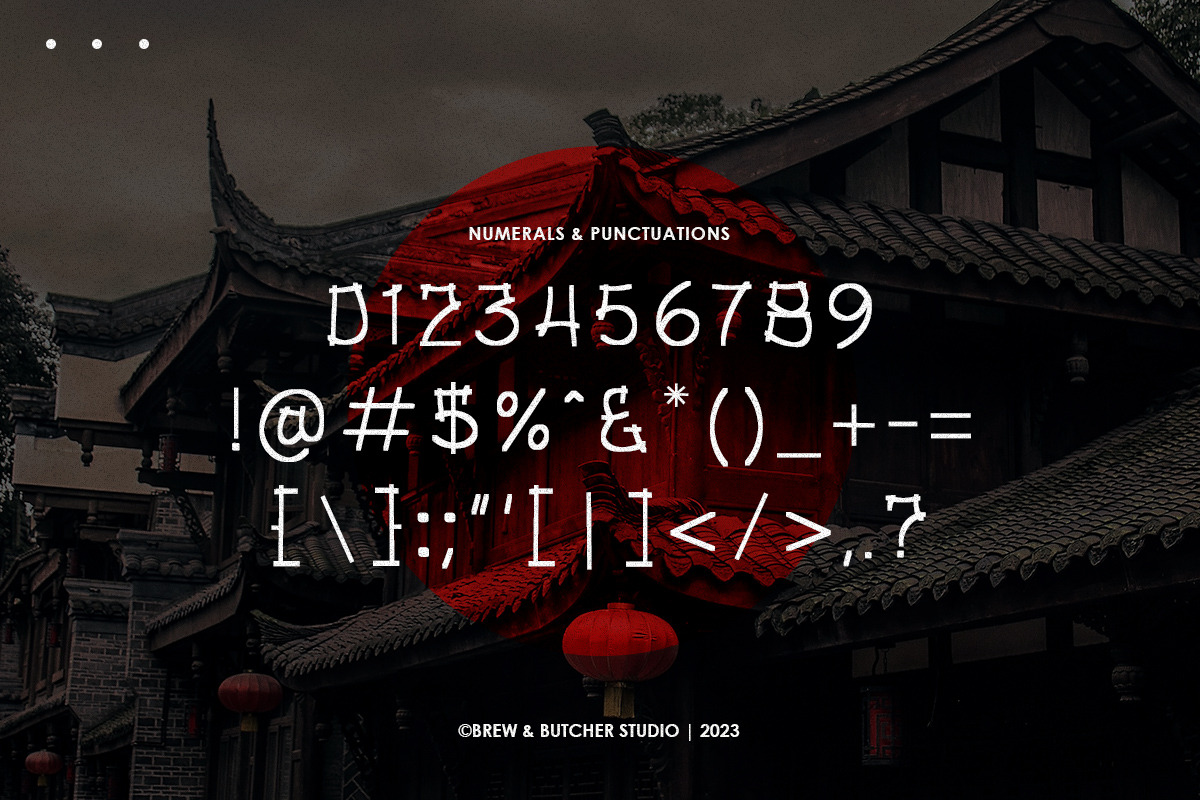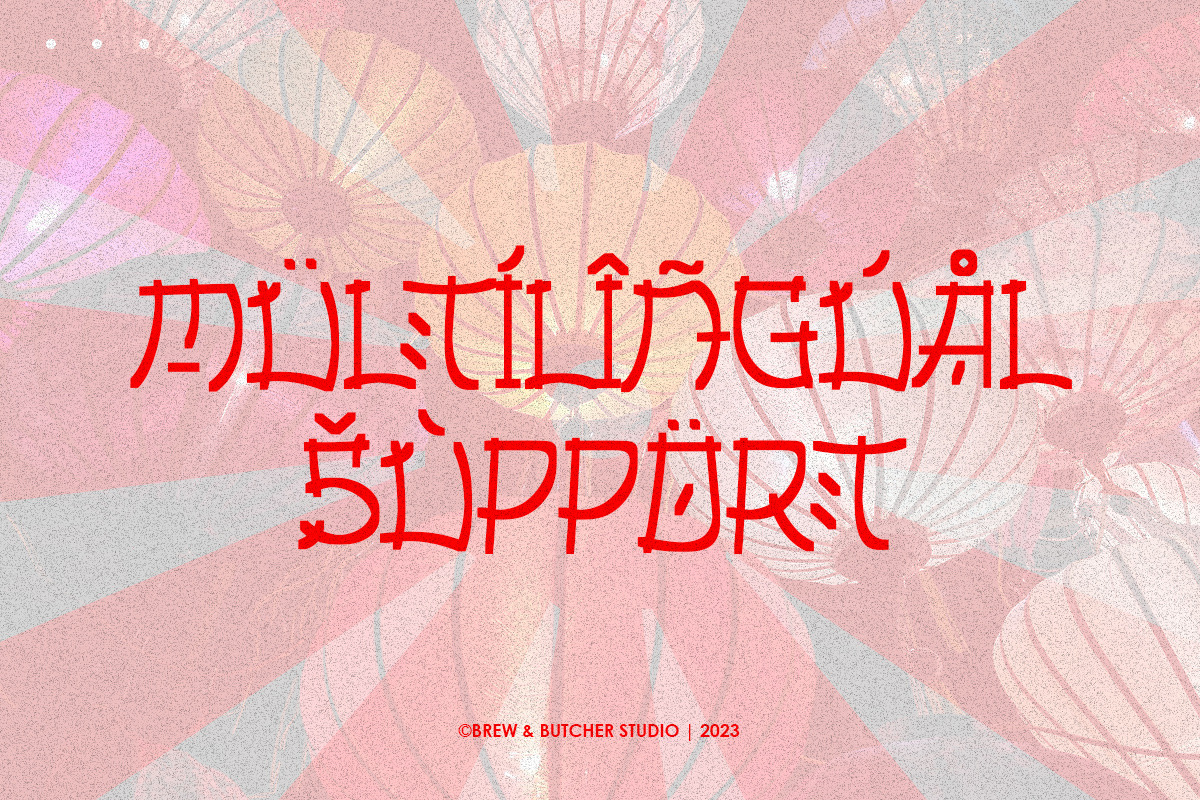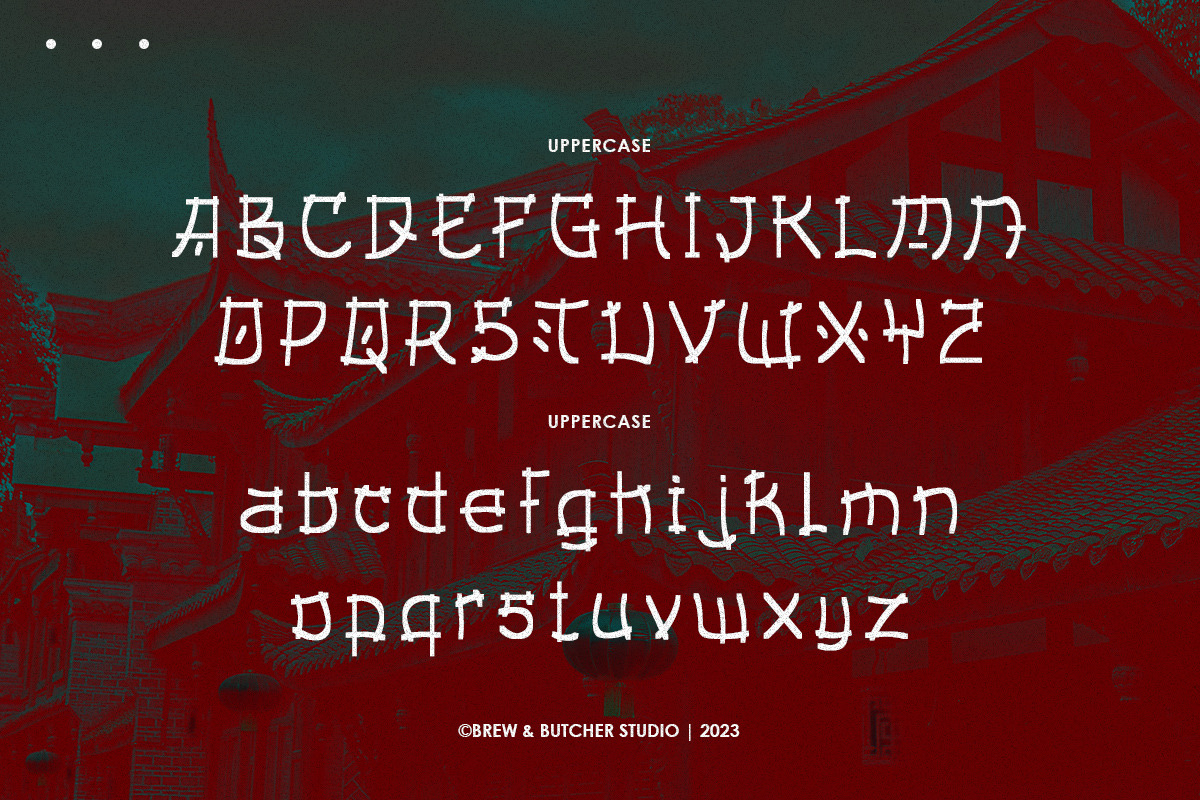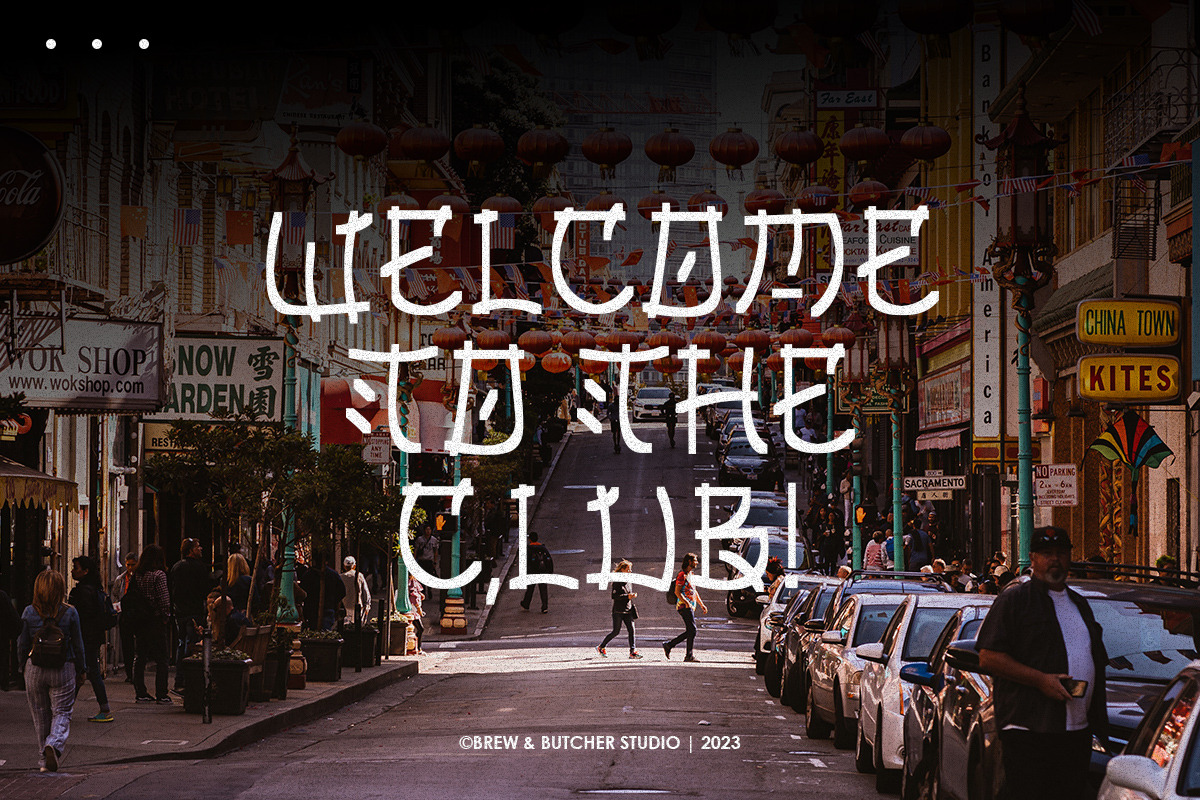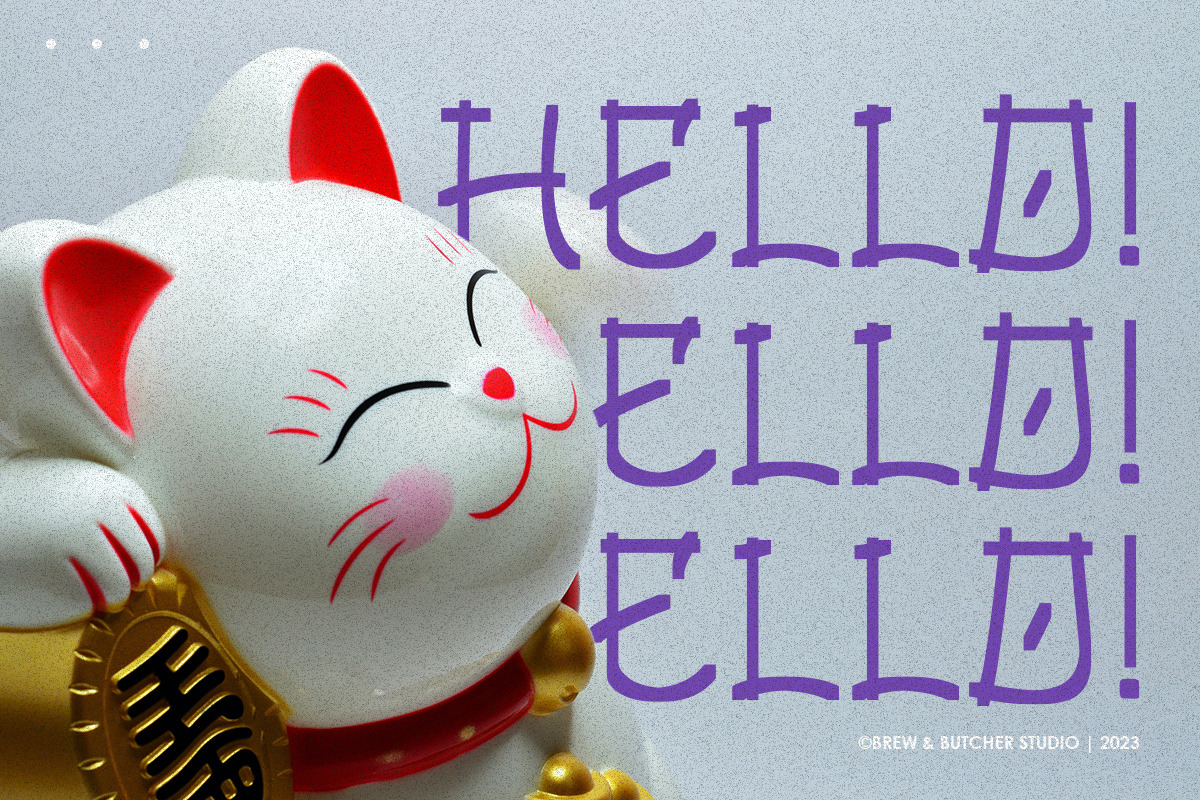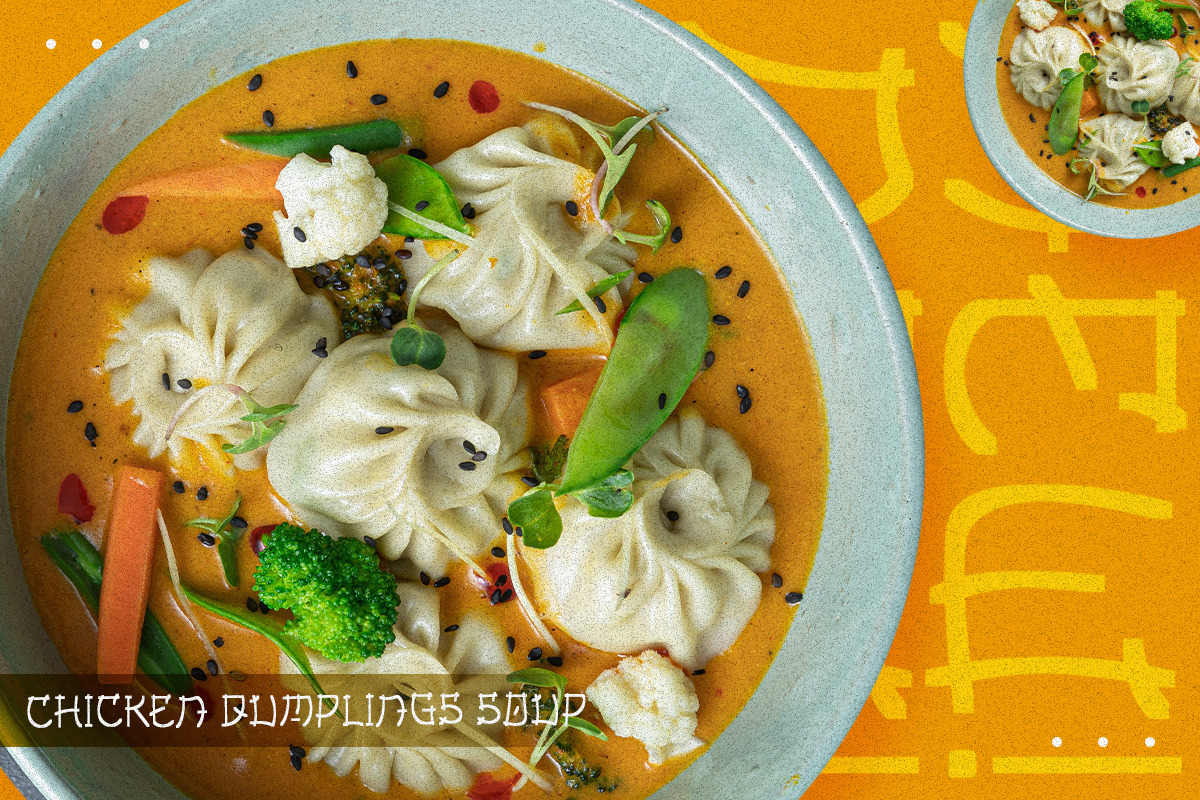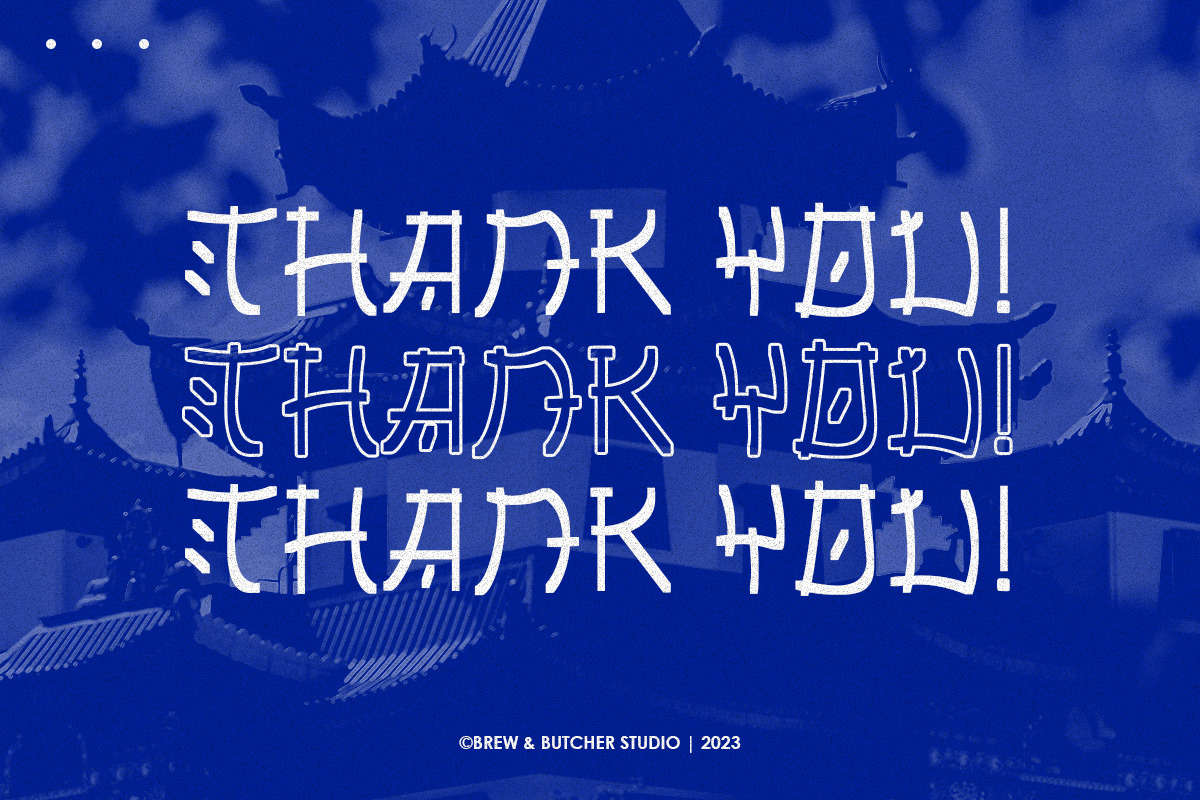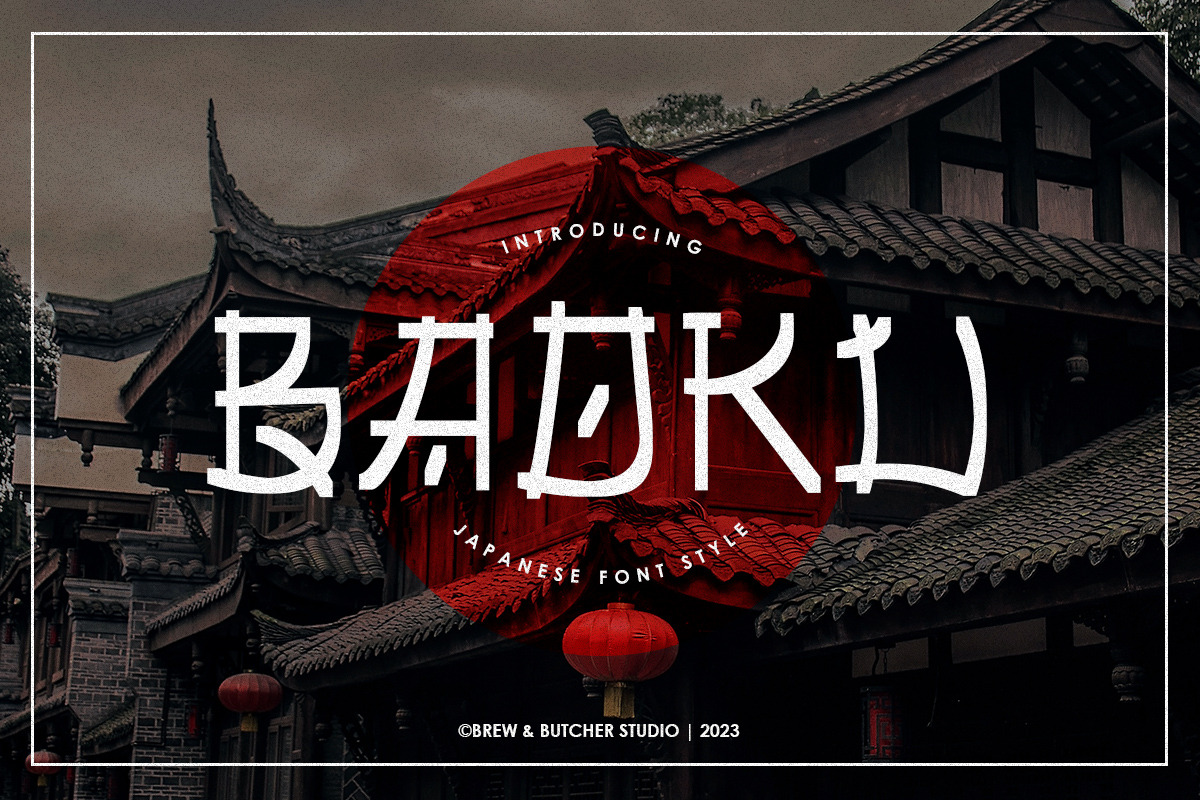
Baoku | Japanese Style Font
Baoku is writing that has a cultural character, inspired by Japanese culture and its life. With that style looks stiff but still soft and combined with passing lines, so as to reflect a cultured vibes. This font is best to use for header or headline, poster, flyer, banner, landingpage, portfolio, name write, album covers, and etc.
- Multilanguage